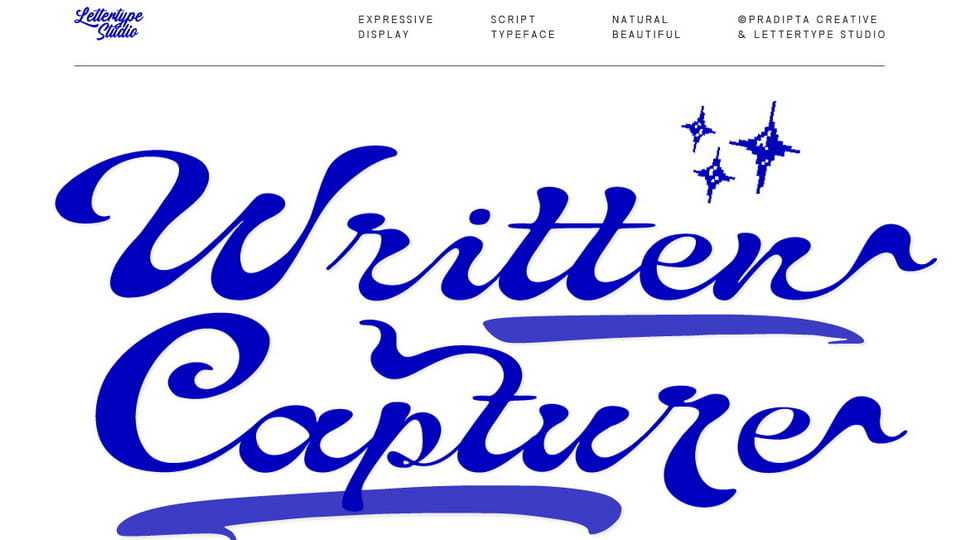
Download Written Capture font, developed to reflect the expressive side of handwriting. Rather than aiming for perfect uniformity, the typeface embraces subtle irregularities that add warmth, movement, and personality to each word.
Designer: Lettertype Studio